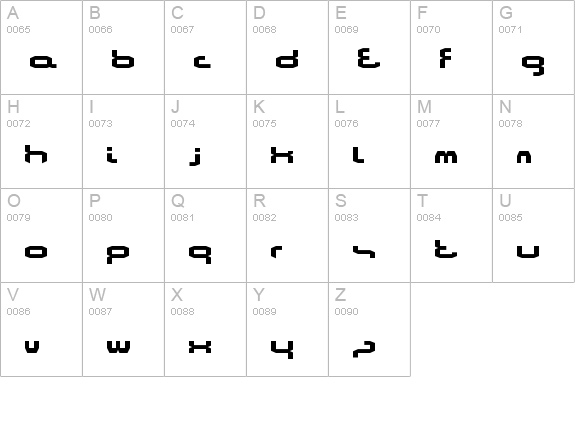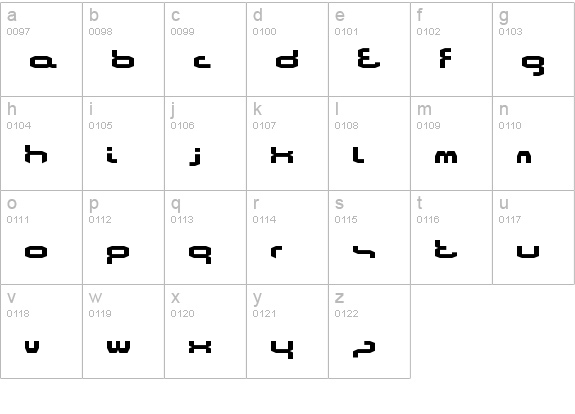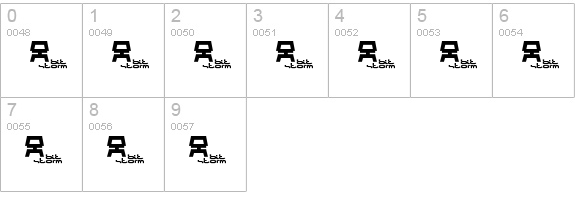
Introducing Bitstorm font – a captivating typeface that exudes a modern and sleek aesthetic perfect for a wide range of design projects. With its sharp lines and bold presence, Bitstorm commands attention and adds a touch of sophistication to any text or branding application. Whether you're creating a logo, website, poster, or any other design project, Bitstorm is sure to make a statement. The best part? Bitstorm font is available for free download at FontsMarket.com, making it easily accessible to designers and creatives looking to enhance their work with a stylish and contemporary typeface. Don't miss out on this opportunity to elevate your designs with the dynamic and eye-catching Bitstorm font today!